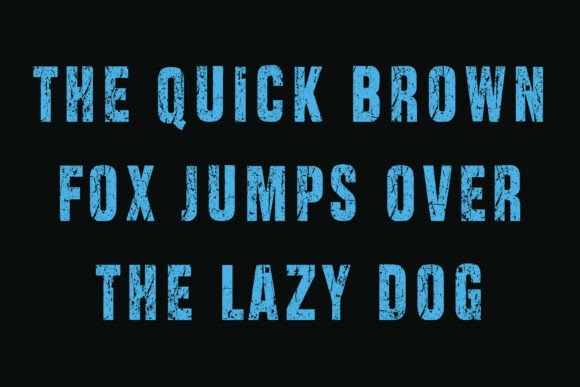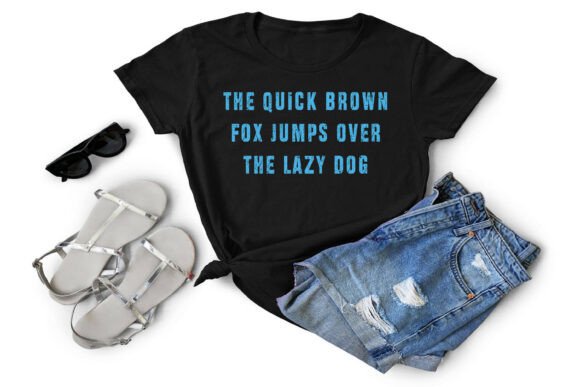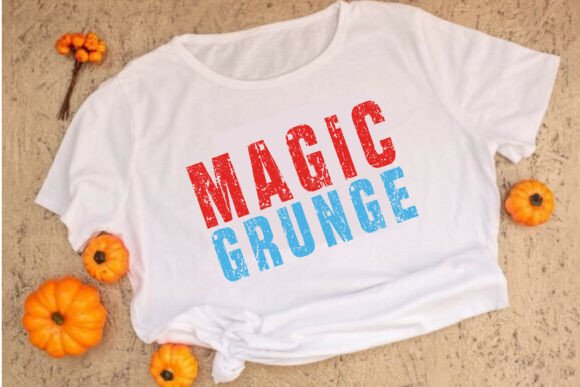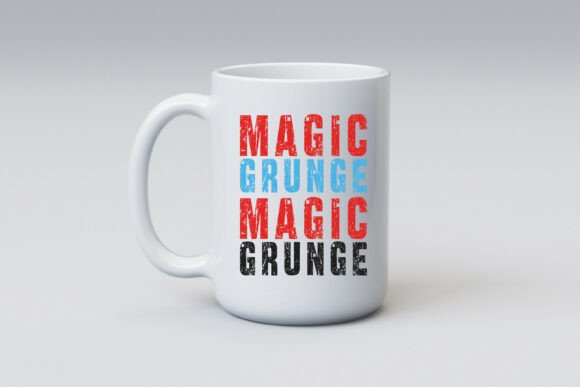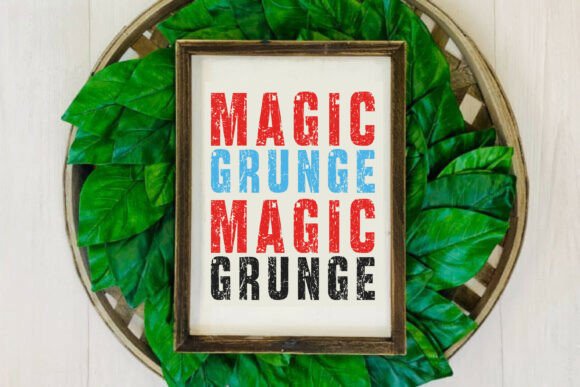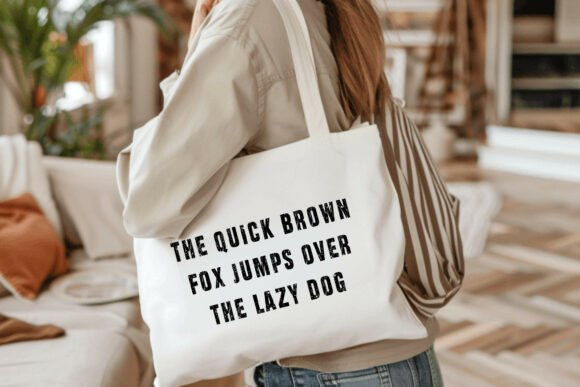
Introduction to Magic Grunge Font
Introducing a vibrant splash to your creative projects, our color font embodies joy and whimsy that is bound to elevate your design endeavors.
An absolute fit for branding initiatives, packaging designs, riveting logotypes, and gripping headlines, it also adds a sprinkle of charm to wedding invitations and similar creatives Embrace and experience the transformative power of this uplifting font in your designs.
Key Features of Magic Grunge Font
Why Choose Magic Grunge Font?
Magic Grunge Font offers exceptional quality and versatility, making it a valuable addition to your design toolkit. Whether you’re creating for personal projects or commercial use, Magic Grunge Font delivers professional results.